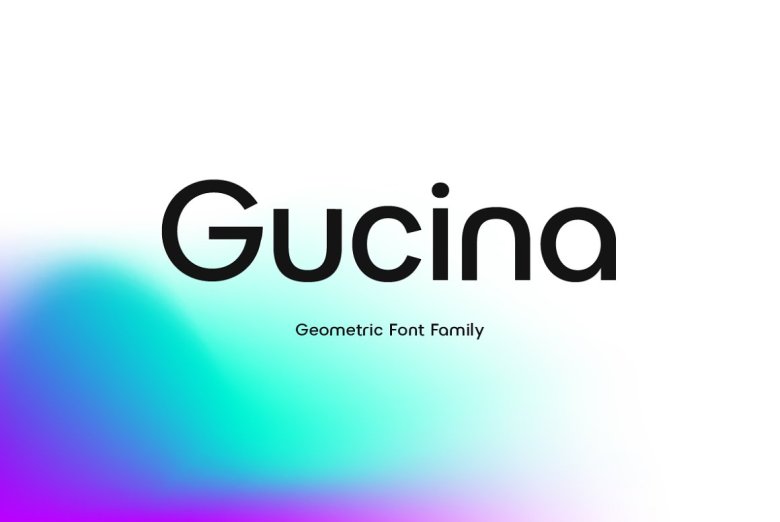
Gucina Font
Introducing the Gucina Geometric Font Family, an exquisite and modern typeface family that will bring out the sophistication in your designs. This font type with its clear and simple lines is ideal for creating minimalist logos, advertisements, web design and corporate identity materials.
Gucina Geometric is sold in a range of weights. It comes with different thicknesses of the same typographic style to suit your different (graphic) needs for any design project. If you need a bold knockout font for headlines or a light, airy font for text, Gucina does it all.
Gucina Sans Serif Font Family